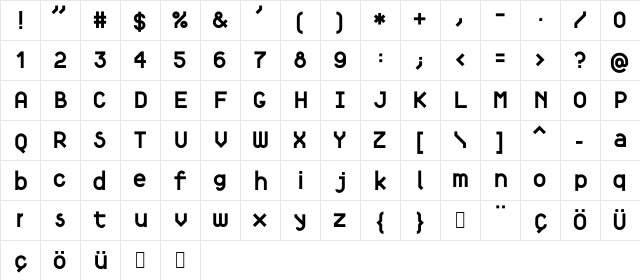
Fortyfive Bold
Design Context for Fortyfive Typeface
Fortyfive takes a measured approach to typography — its balanced proportions and neutral character make it a reliable workhorse for both digital and print work. The heavy weight commands attention and anchors typographic hierarchies.